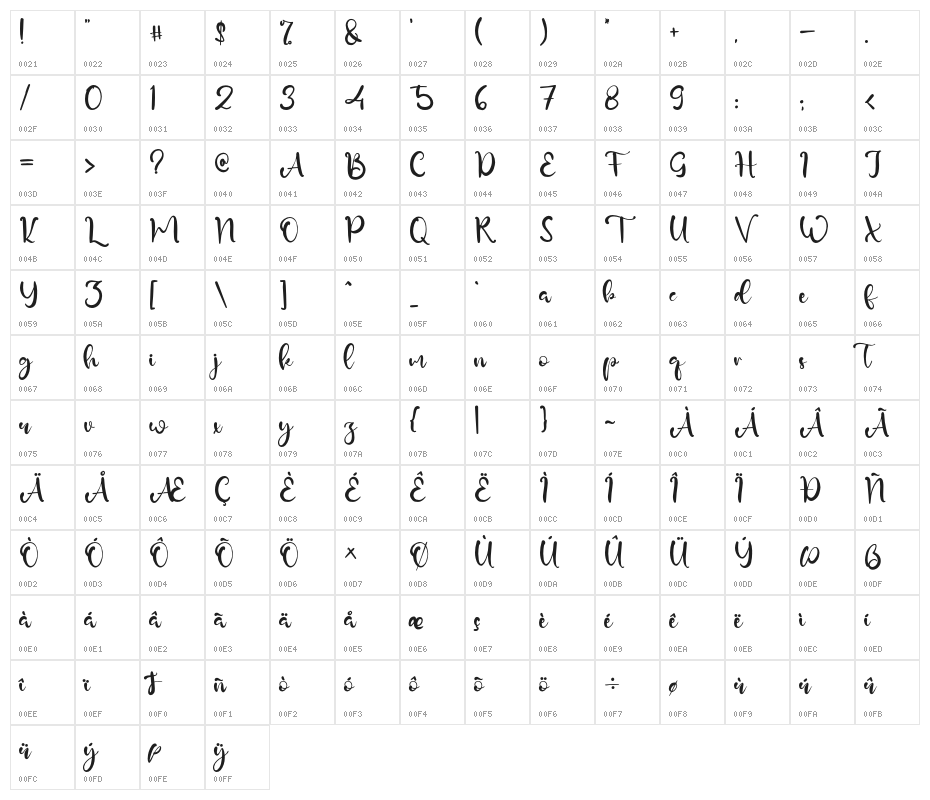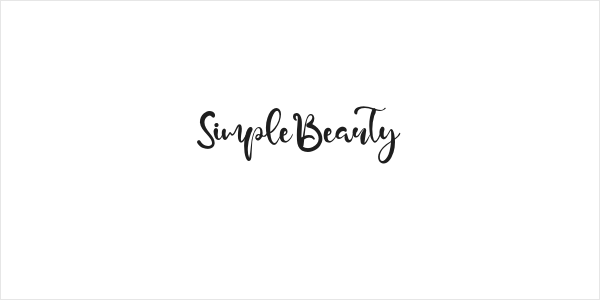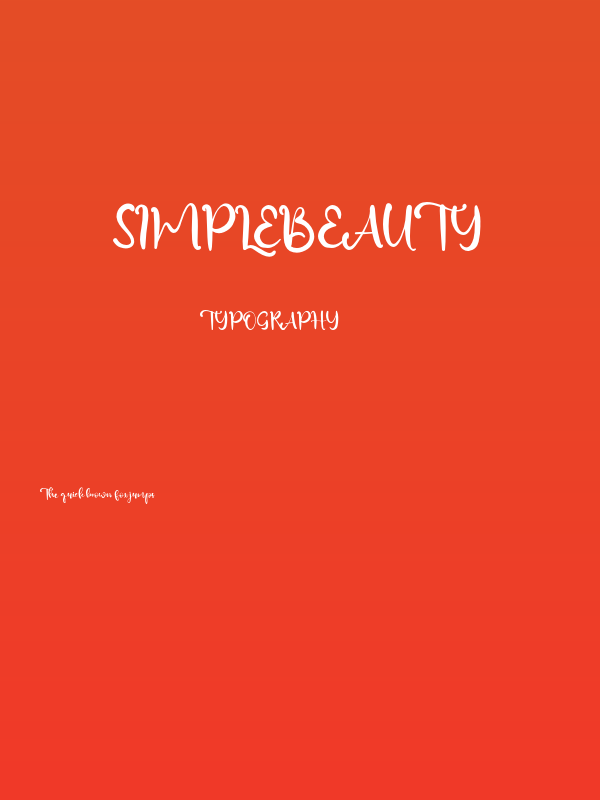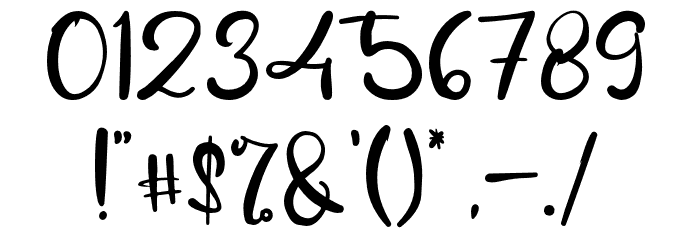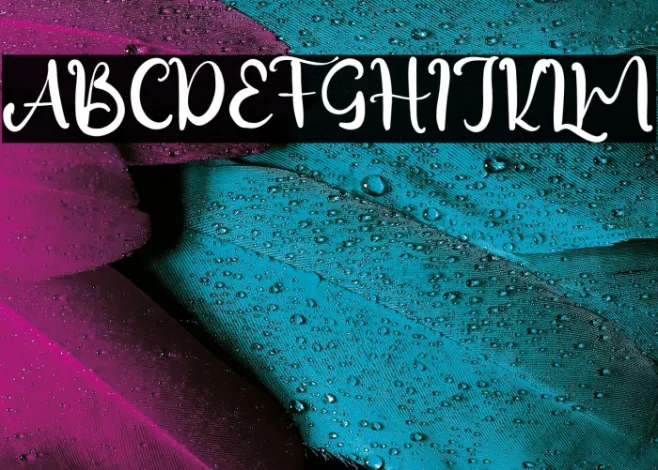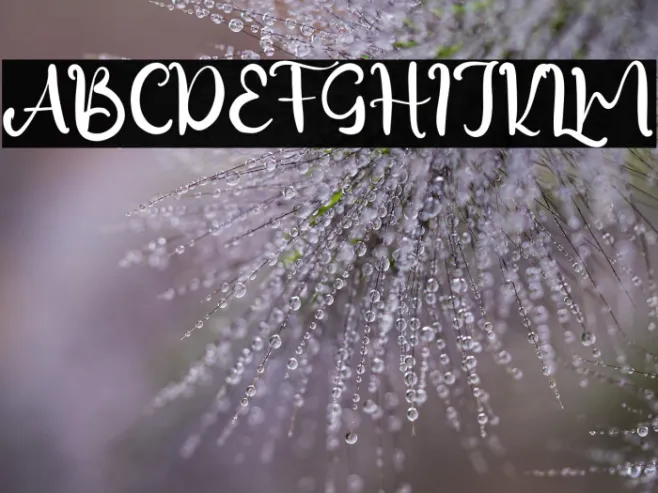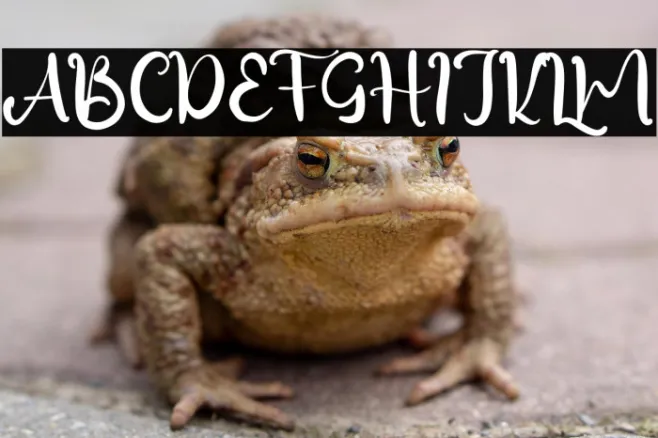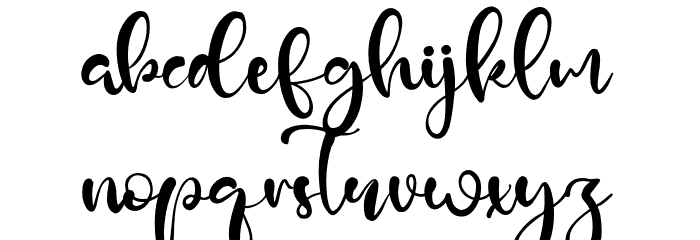
SimpleBeauty Font
SimpleBeauty Description
This font exudes a playful and artistic flair, characterized by its flowing, cursive style that mimics elegant handwriting. The letters are interconnected, creating a seamless and fluid appearance. The uppercase letters stand tall with graceful curves, while the lowercase letters maintain a consistent rhythm and balance. Numbers and special characters are crafted with the same attention to detail, ensuring uniformity across all elements. The strokes vary in thickness, adding a dynamic contrast that enhances readability while maintaining an artistic touch. This font is perfect for projects that require a personal and creative feel.